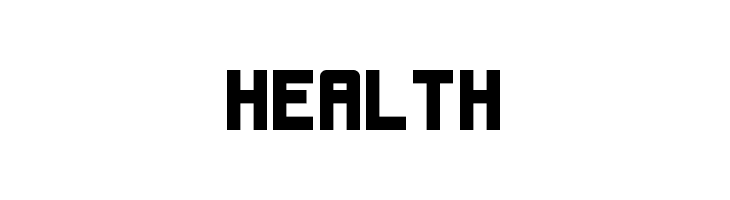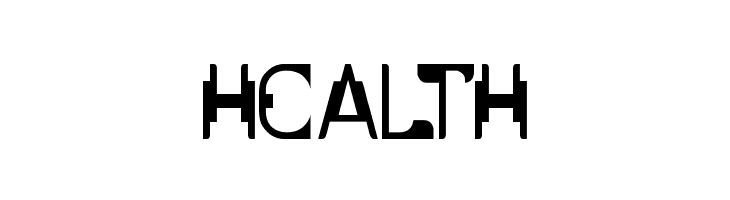
A bold, futuristic font with a digital, pixelated aesthetic.
A bold, angular font with a modern, edgy style.
A rugged, hand-drawn font with angular strokes and a unique, edgy appearance.
A bold, geometric font with a modern, industrial aesthetic.
A bold, edgy font with a cut-out, collage-like appearance.
A bold, edgy font with sharp, angular strokes and a dynamic, modern aesthetic.
A bold, geometric font with angular lines and modern design elements.
A vintage, typewriter-inspired font with a textured, worn appearance.
A modern, geometric typeface with a clean and sleek design.